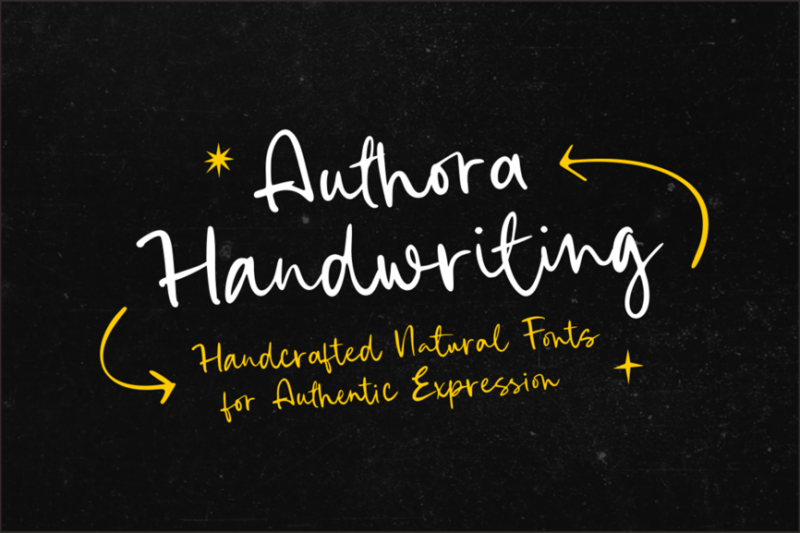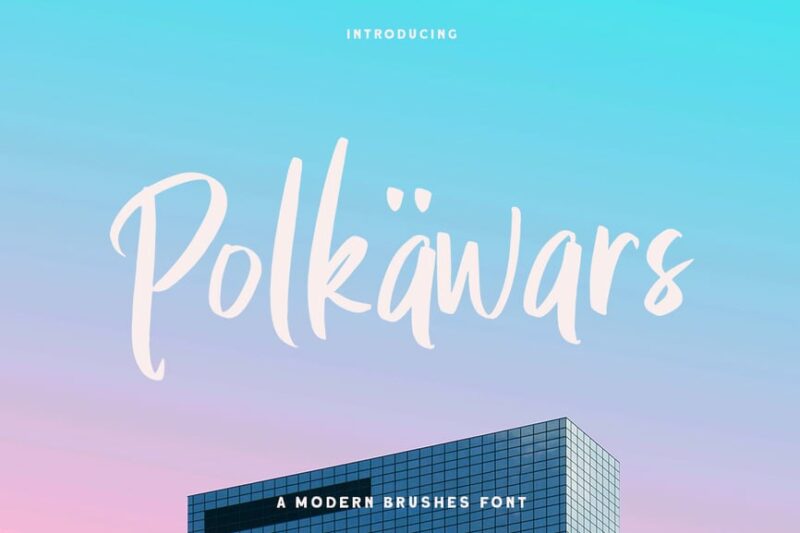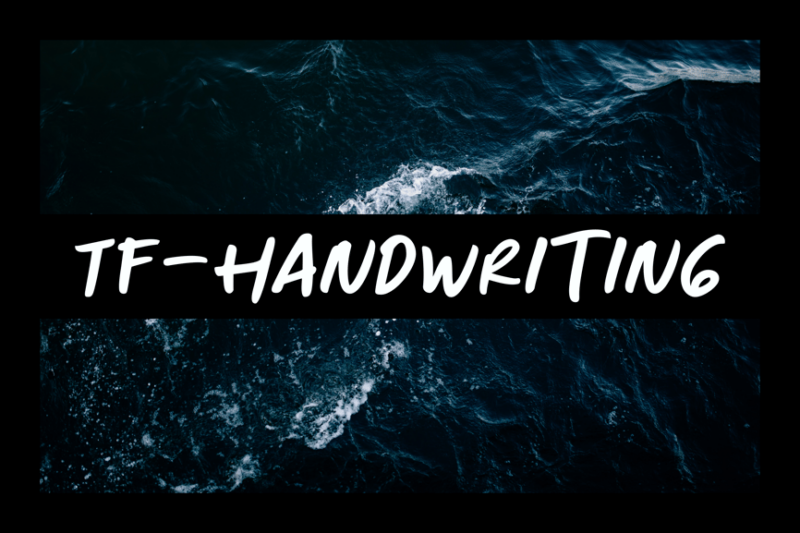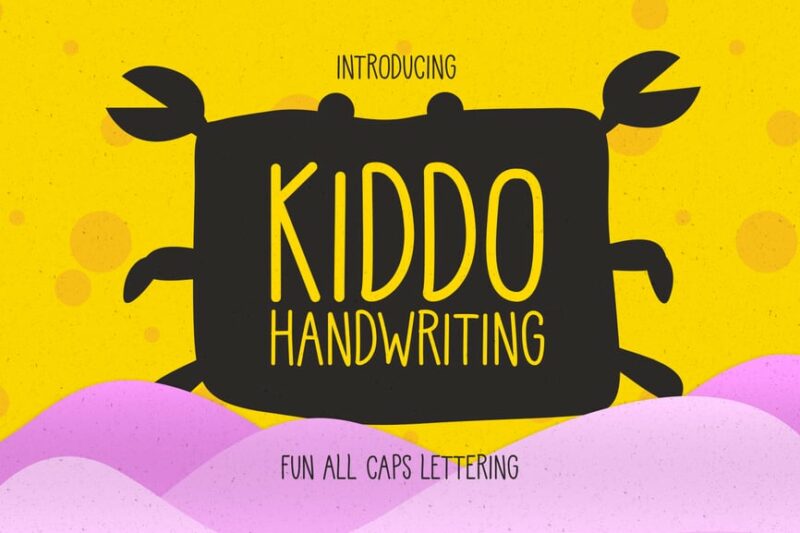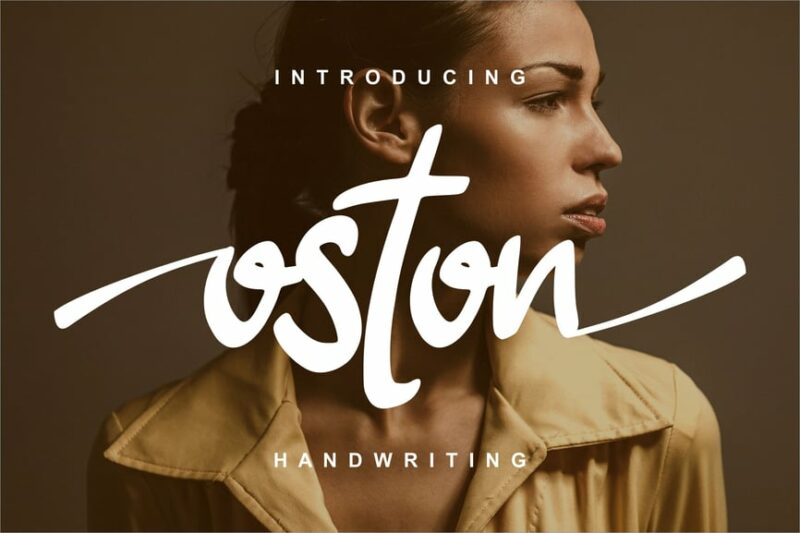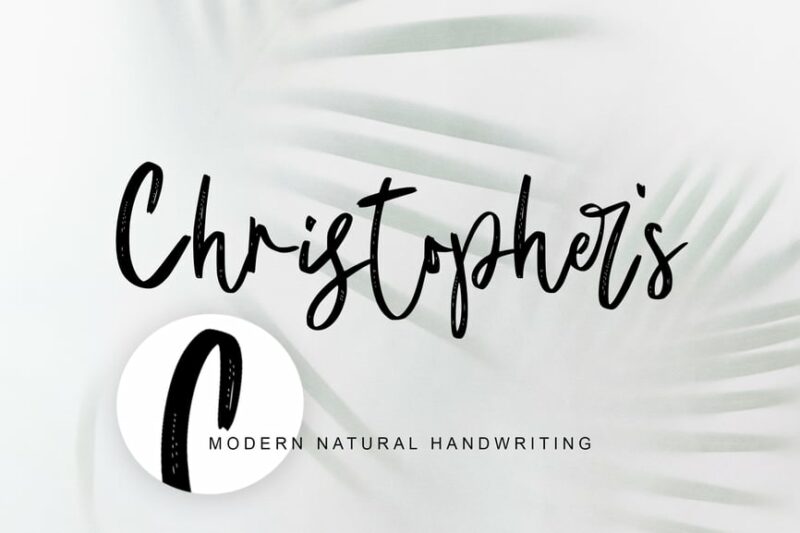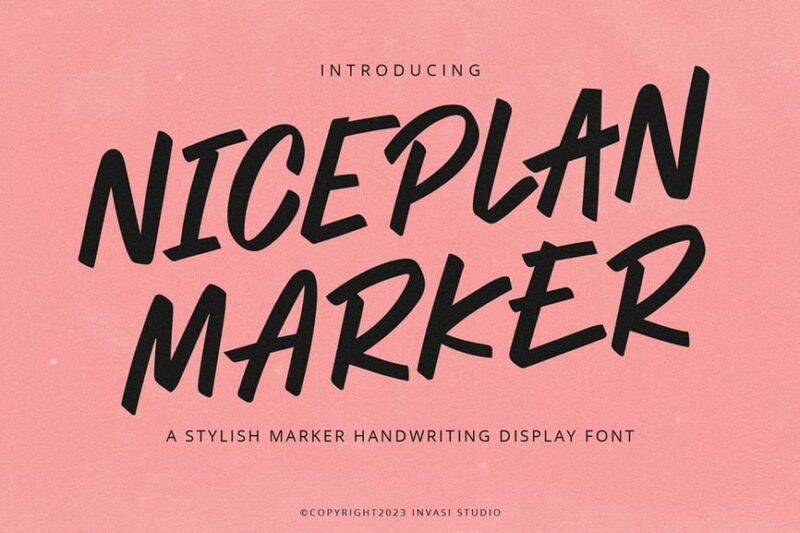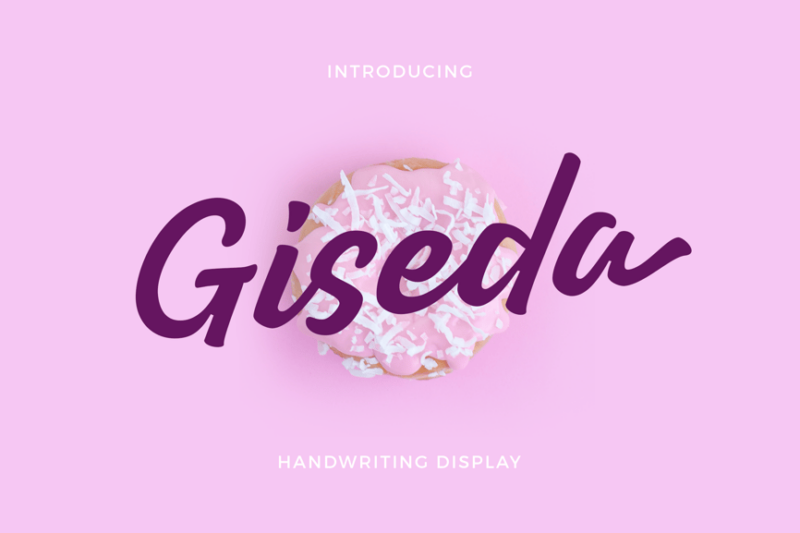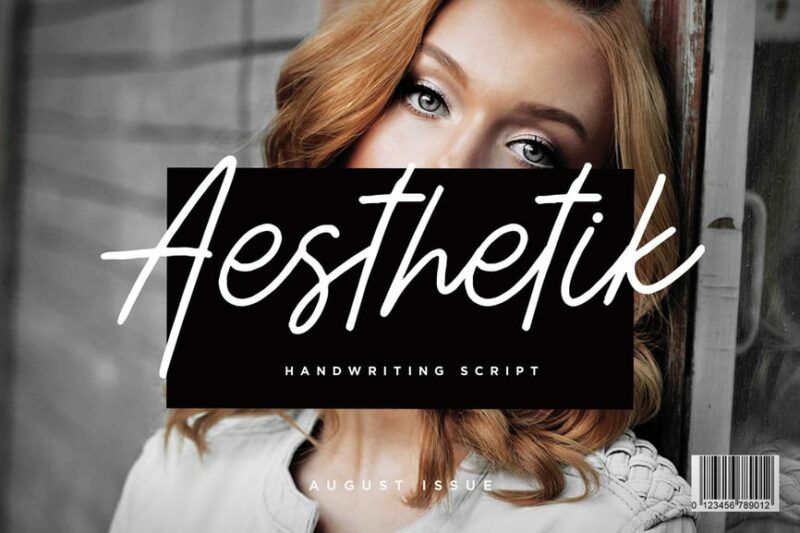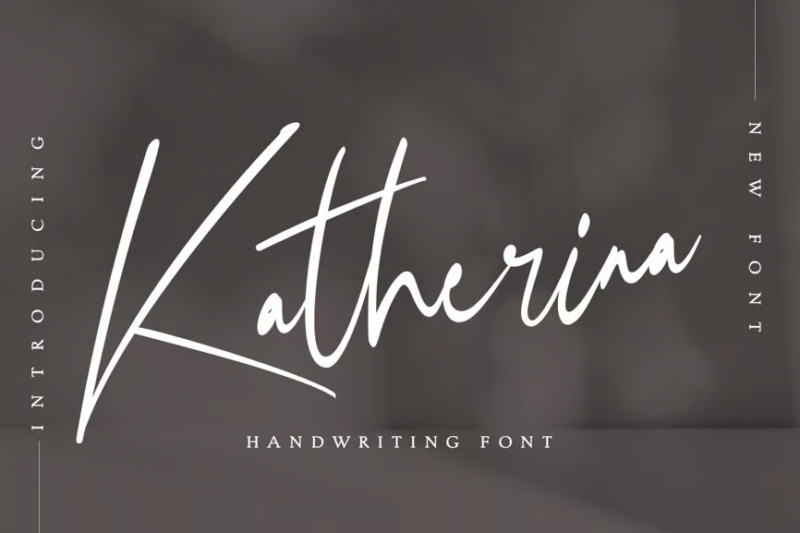
There’s something magical about a truly great handwriting font. It’s not just about making text look hand-drawn – it’s about capturing the subtle imperfections and natural flow that make handwriting feel genuinely human.
We’re seeing a fantastic renaissance in handwriting fonts, with designers pushing the boundaries of what’s possible in digital penmanship. Whether you’re looking to add a personal touch to your brand or create an intimate connection with your audience, the right handwriting font can make all the difference.
In this deep dive, we’ll explore the most authentic handwriting fonts of 2026, uncover what makes them feel so natural, and learn how to use them effectively in your designs. Let’s get started!
The absolute best handwriting fonts we could find:
Authora Handwriting
Authora Handwriting is an elegant and personalized script font. Its fluid strokes and subtle irregularities give it an authentic, hand-written feel, making it perfect for signature-style designs and intimate branding projects.
Polkawars Hand Writing Sans
Polkawars is a playful and energetic handwriting font with a sans-serif base. Its lively character and slight irregularities make it ideal for children’s designs, informal branding, and creative projects that require a friendly, approachable feel.
TF Handwriting
TF Handwriting offers a natural, everyday script style. Its casual yet legible appearance makes it suitable for a wide range of applications, from personal correspondence to informal marketing materials and social media graphics.
Heartland Handwriting
Heartland Handwriting exudes a rustic, down-to-earth charm. Its slightly rough edges and uneven baseline give it an authentic, hand-crafted feel, perfect for designs related to nature, crafts, or vintage-inspired projects.
Kiddo Handwriting
Kiddo Handwriting captures the endearing imperfections of a child’s penmanship. Its uneven letter sizes and quirky character forms make it ideal for children’s books, educational materials, or any design targeting a young audience.
Oston Handwriting
Oston Handwriting presents a clean, modern take on handwritten script. Its smooth lines and consistent flow make it highly legible while maintaining a personal touch, suitable for contemporary branding and lifestyle-oriented designs.
Naturally Handwriting
Naturally Handwriting, as its name suggests, offers an organic, true-to-life script. Its natural flow and subtle imperfections create an authentic handwritten appearance, perfect for personal branding, invitations, and designs that require a genuine human touch.
Christopher’s Handwriting
Christopher’s Handwriting presents a neat, somewhat formal script style. Its consistent slant and well-formed letters give it a polished look while maintaining the charm of handwriting, making it suitable for professional correspondence and elegant designs.
Niceplan Marker Handwriting
Niceplan Marker Handwriting mimics the look of text written with a felt-tip marker. Its bold strokes and slight irregularities give it a dynamic, energetic feel, perfect for headlines, posters, and designs that need to grab attention quickly.
Giseda Handwriting Display
Giseda Handwriting Display offers a stylish, feminine script with flourishes. Its elegant loops and decorative touches make it ideal for high-end branding, wedding invitations, and designs that require a touch of sophistication and grace.
Aesthetik Handwriting Font
Aesthetik Handwriting Font combines simplicity with style. Its clean lines and subtle irregularities create a modern, minimalist script that’s perfect for contemporary branding, social media content, and designs targeting a fashion-conscious audience.
Labasa Monoline Handwriting
Labasa Monoline Handwriting features a consistent line weight throughout, giving it a clean, modern appearance. Its smooth curves and balanced forms make it highly legible while maintaining a handcrafted feel, suitable for logos, packaging, and contemporary designs.
Sawya Handwriting Display
Sawya Handwriting Display offers a bold, expressive script with dramatic strokes. Its dynamic character and varying line weights make it perfect for headlines, book covers, and designs that need to make a strong visual impact.
Karllina Handwriting Signature
Karllina Handwriting Signature emulates a personal signature style. Its fluid, continuous strokes and elegant flourishes make it ideal for creating custom signatures, personal branding, and designs that require a touch of individuality and sophistication.
Remember, the best handwriting font is one that serves your specific needs while maintaining that crucial balance between legibility and authentic character. Take time to experiment with different options, and don’t be afraid to mix things up – after all, that’s exactly what makes real handwriting so special.